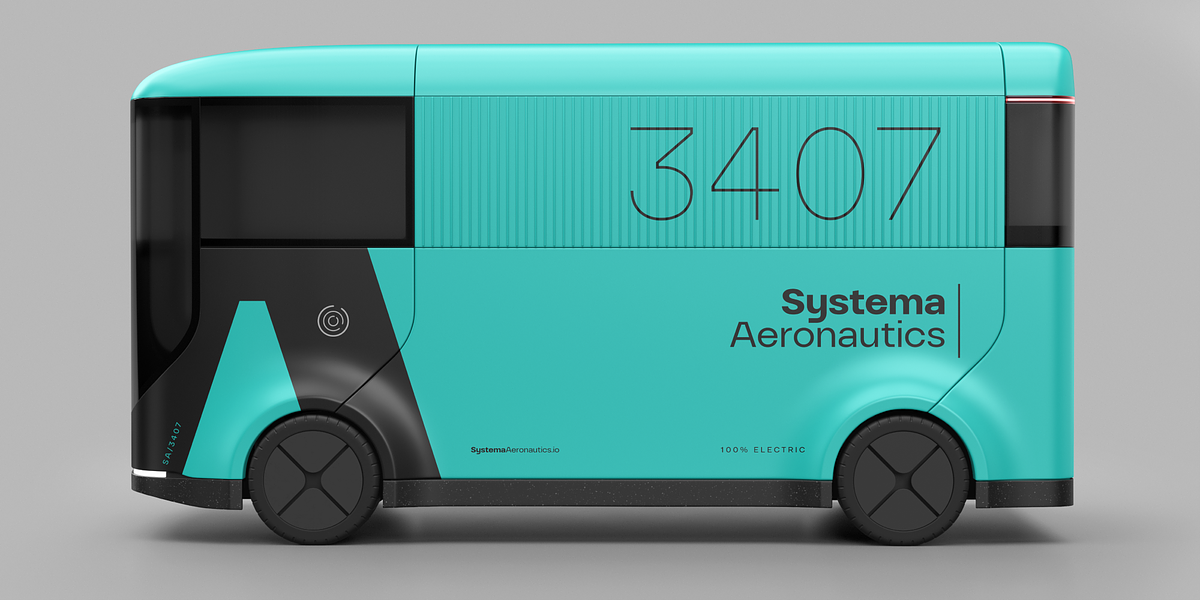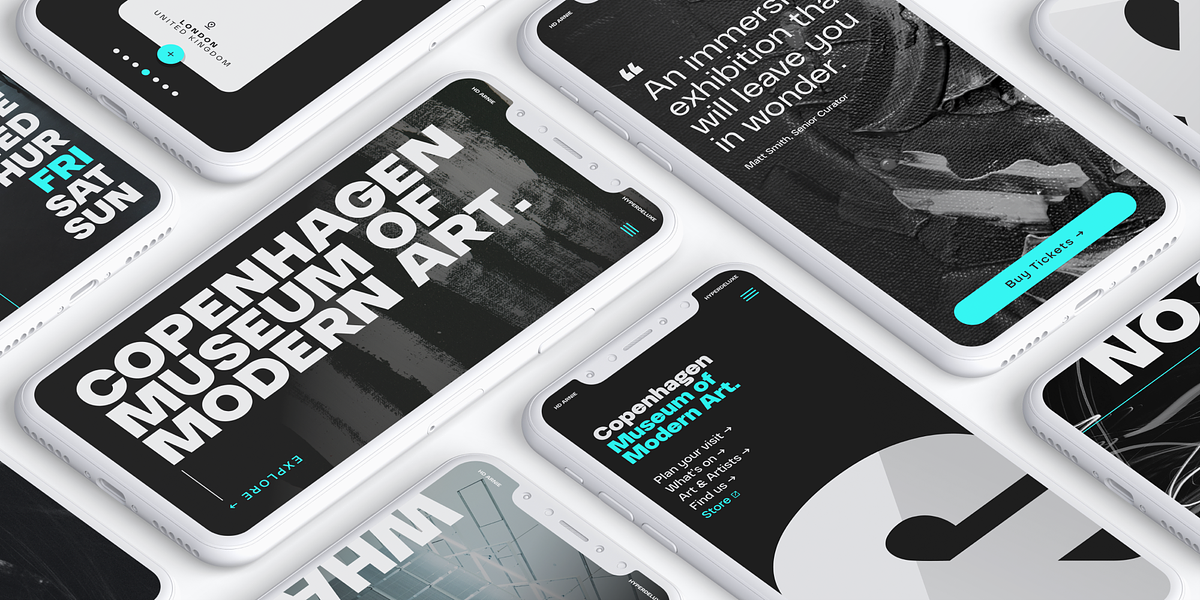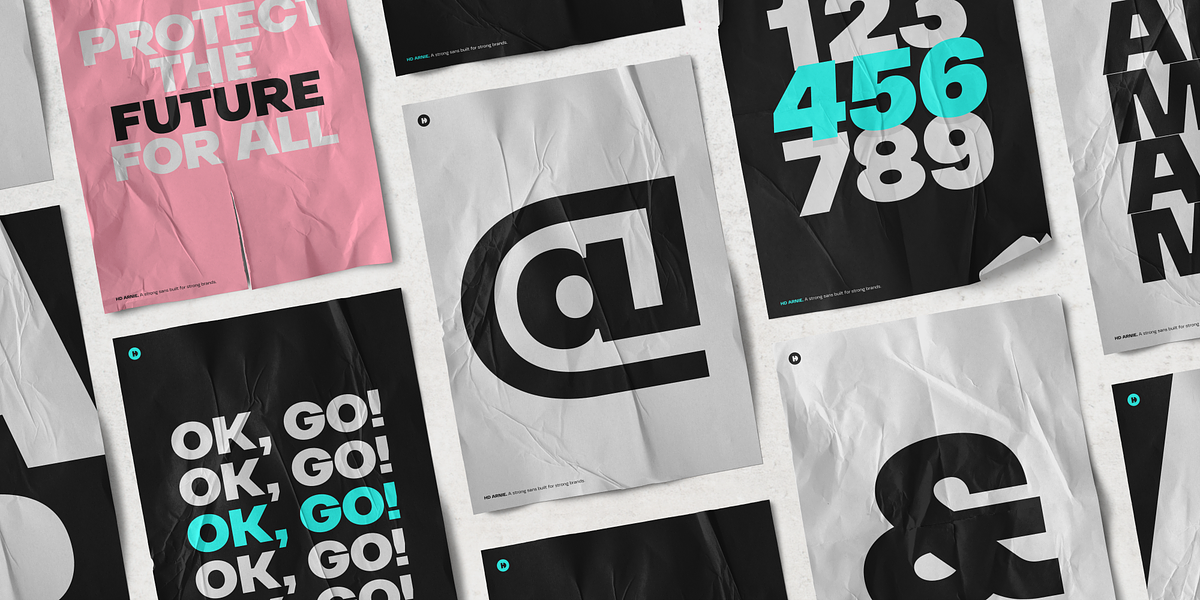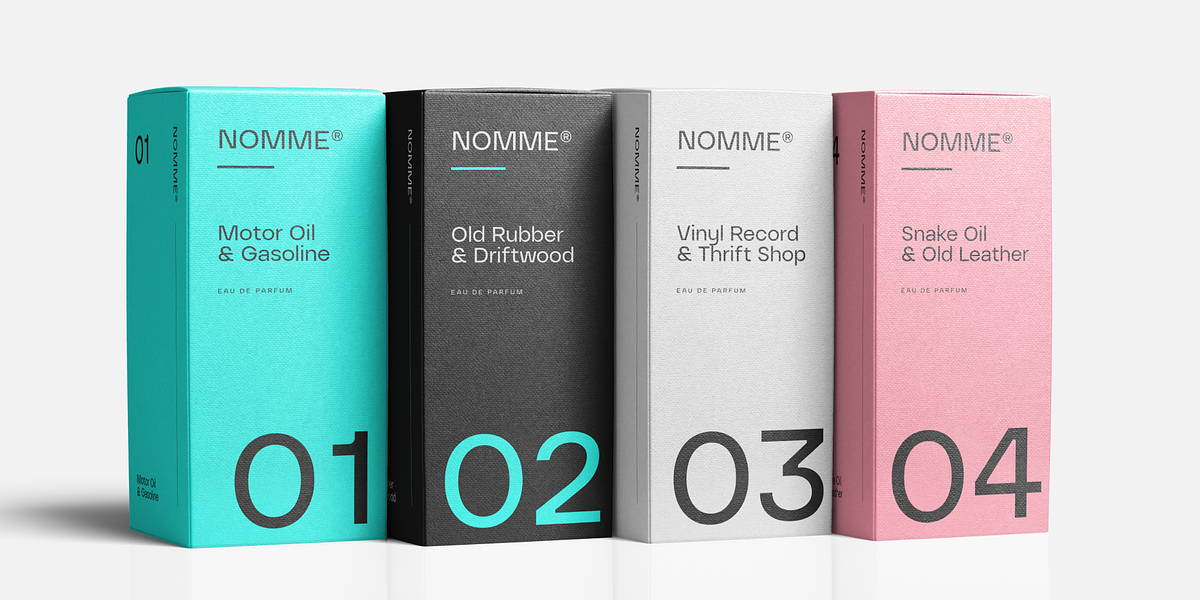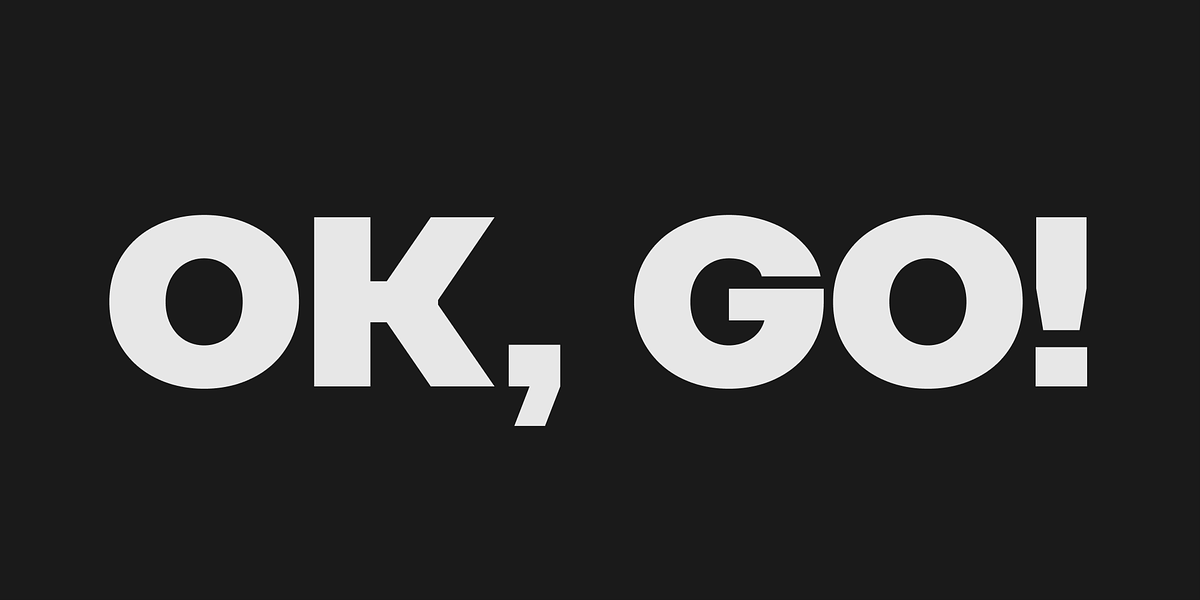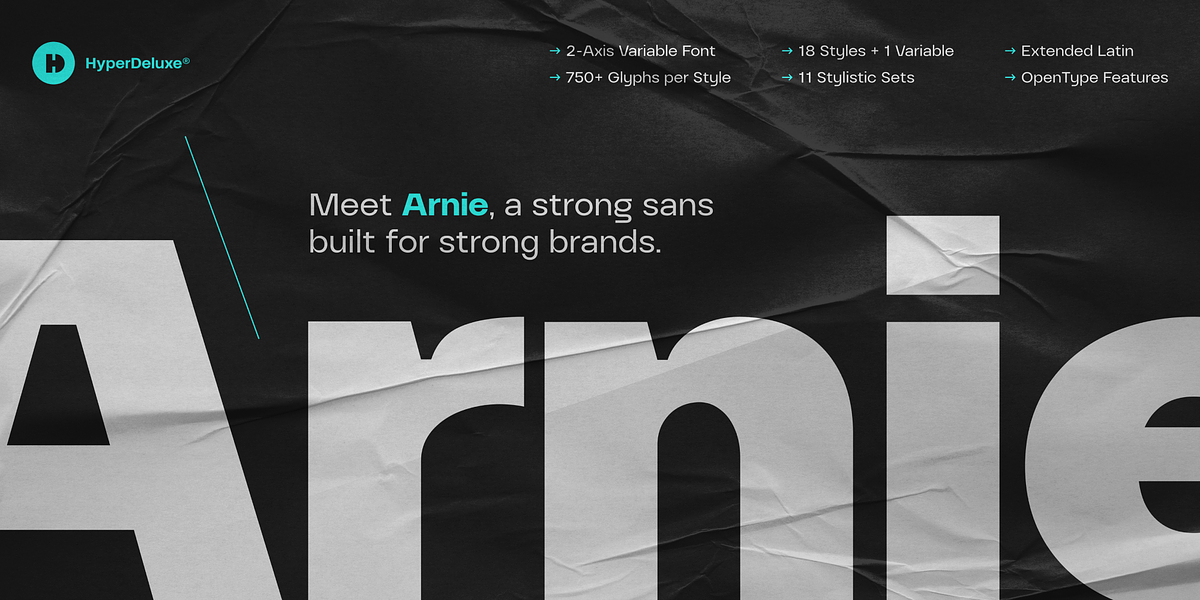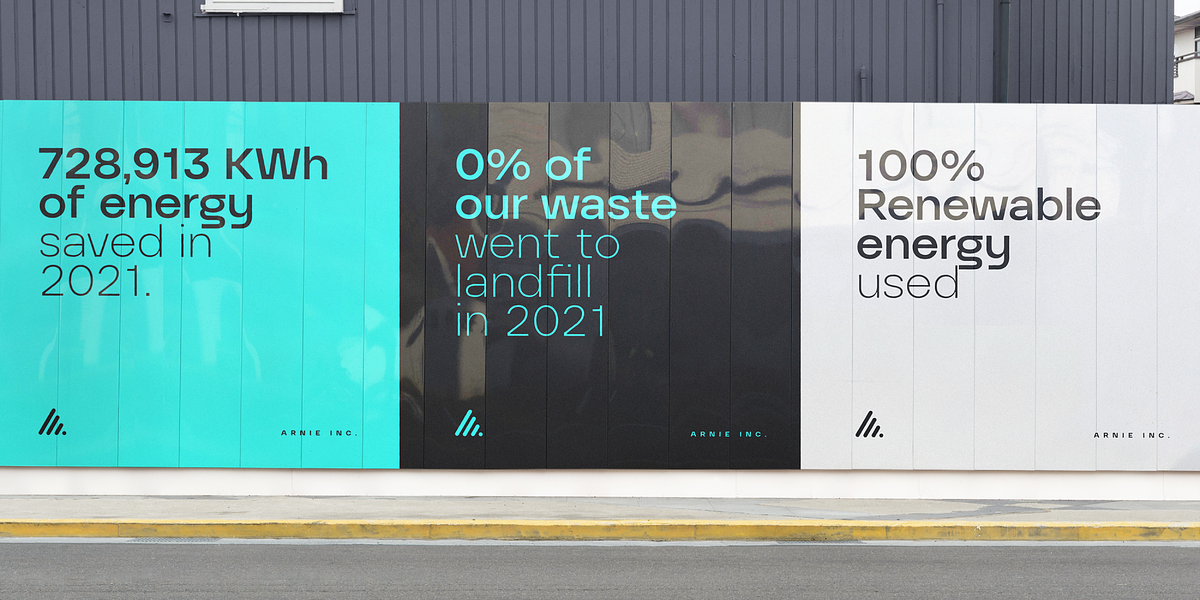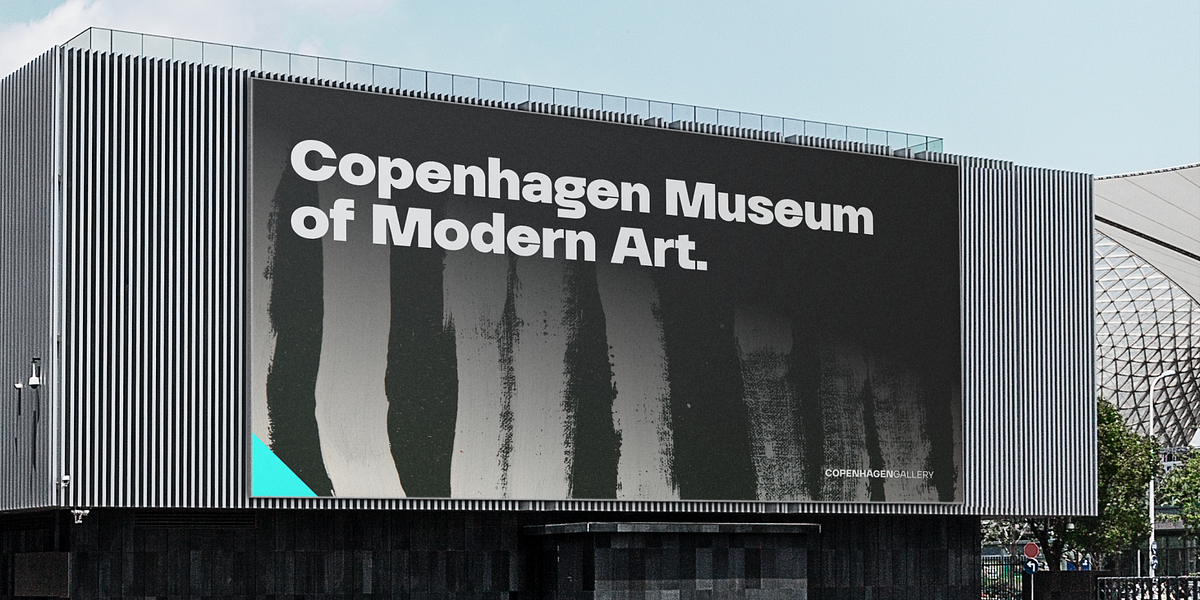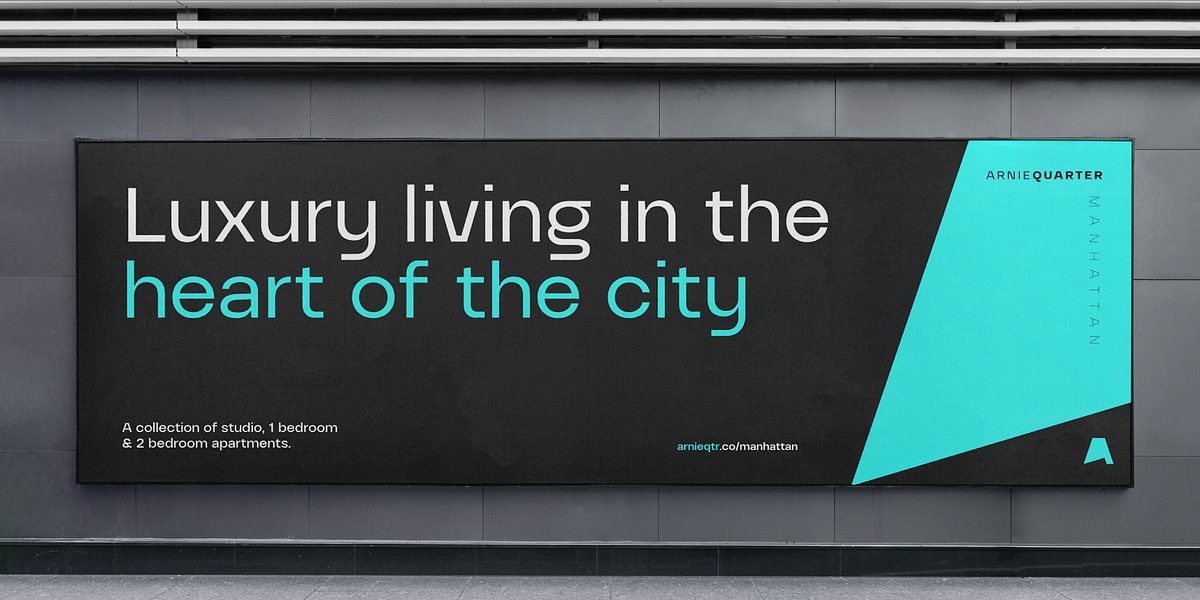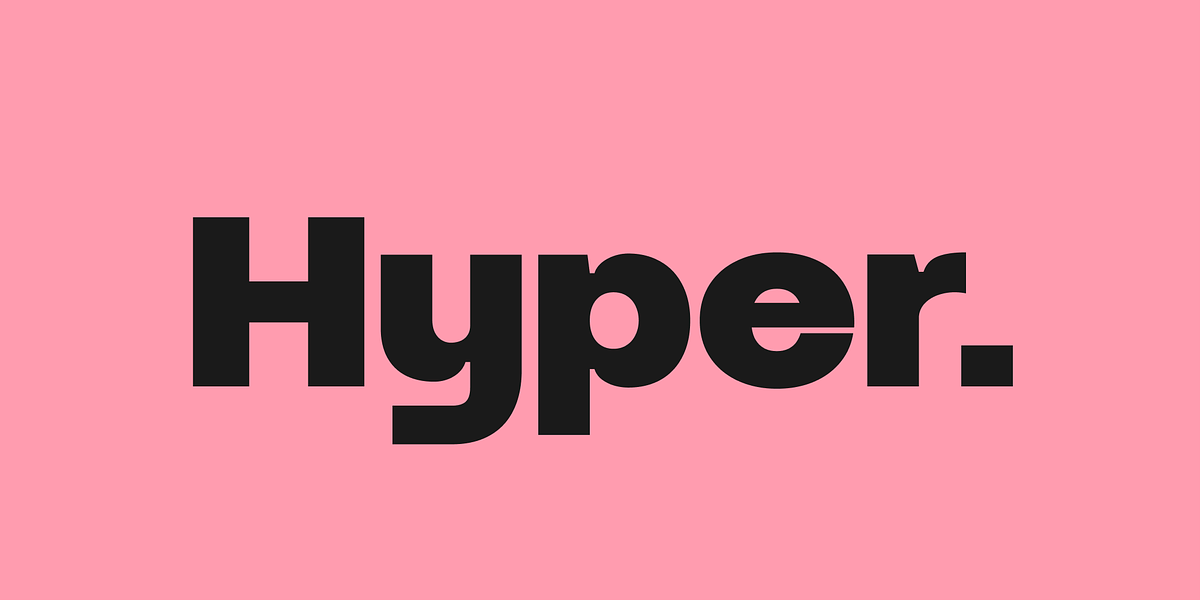
HD Arnie
HD ARNIE is a geometric sans-serif typeface characterized by its unique blend of brutalist angles and softer, rounded shapes. The font features ink traps for added visual interest. It offers extensive alternate character options, allowing for high customization, and includes variable font support.